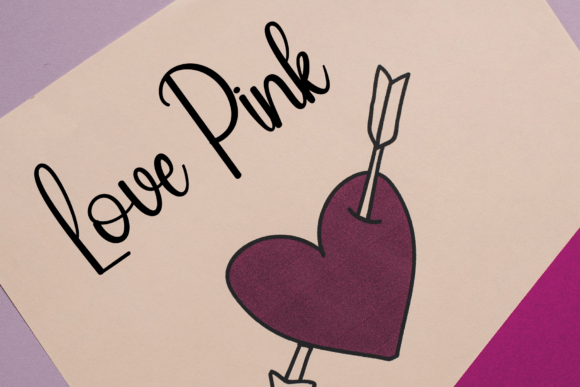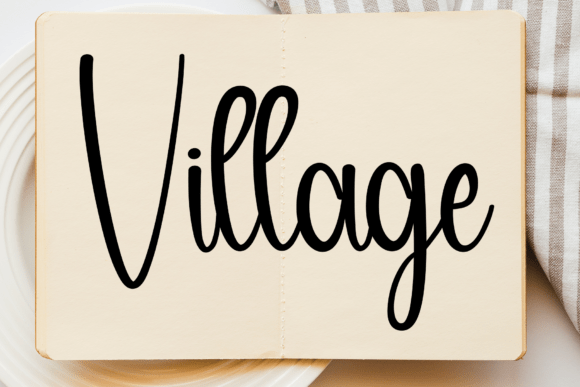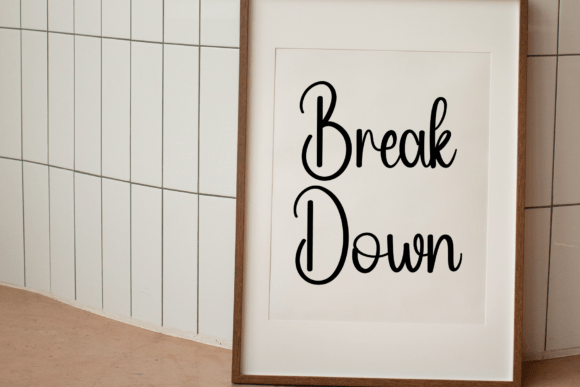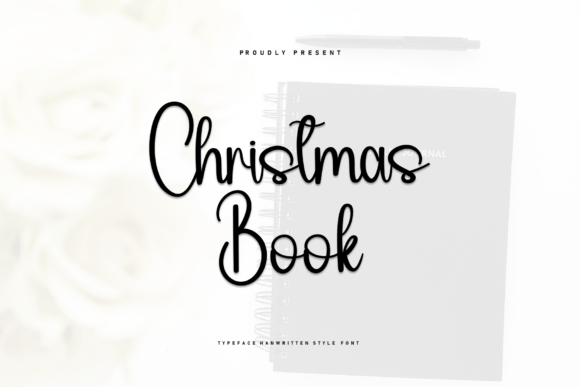
Introduction to Christmas Book Font
Christmas Book is a lovely, elegant, handwritten-style script font that exudes a cozy and personal holiday warmth.
Its flowing, yet legible, cursive lines feel effortlessly natural, giving your designs the authentic touch of a thoughtful, hand-penned note The font’s smooth connectivity and classic structure make it perfect for titles and short passages where a refined, personal touch is required.